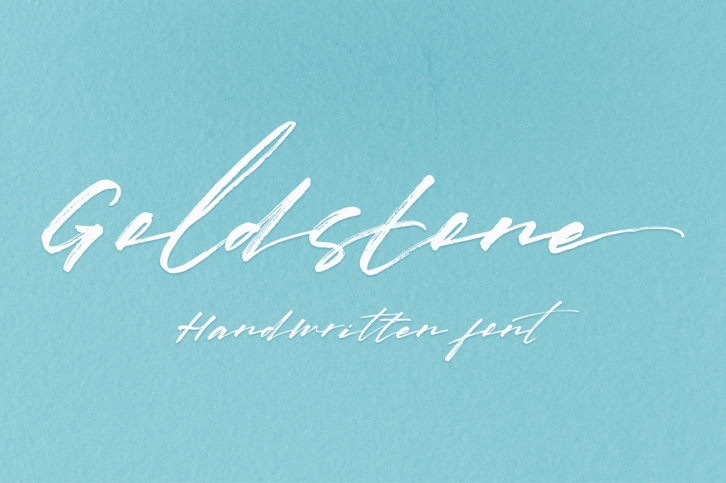
Goldstone FONT Download
Goldstone is a gorgeous font that was realeased on December 23, 2019. The font can be used in many style contexts and design environments. Perfect for invitations, magazines, websites, logos, and more! It was designed by Franstudio and the file size is 20.17 MB. Thanks for checking out this font!